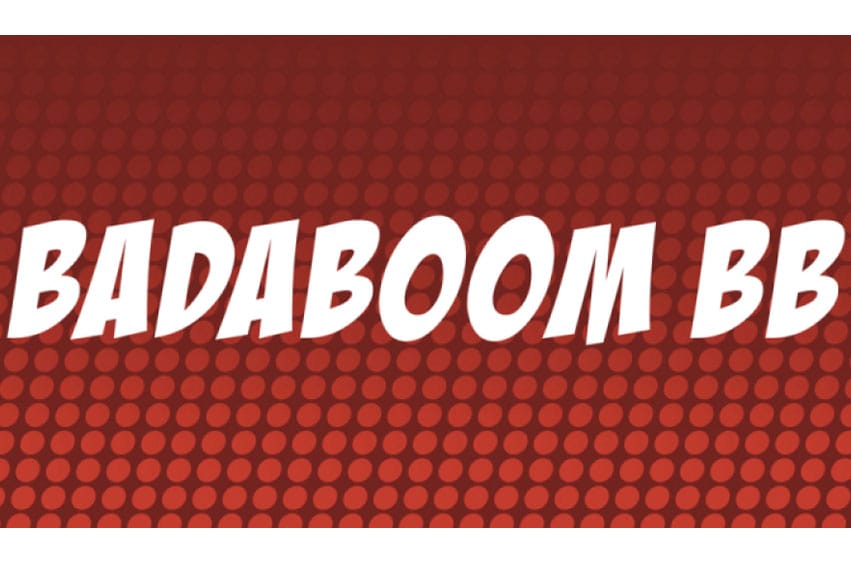
BadaBoom BB Font is a high quality Comic font that is designed by Blambot and is available for free download and personal use.
The free version provides all uppercase and lowercase letters and a few special characters too.